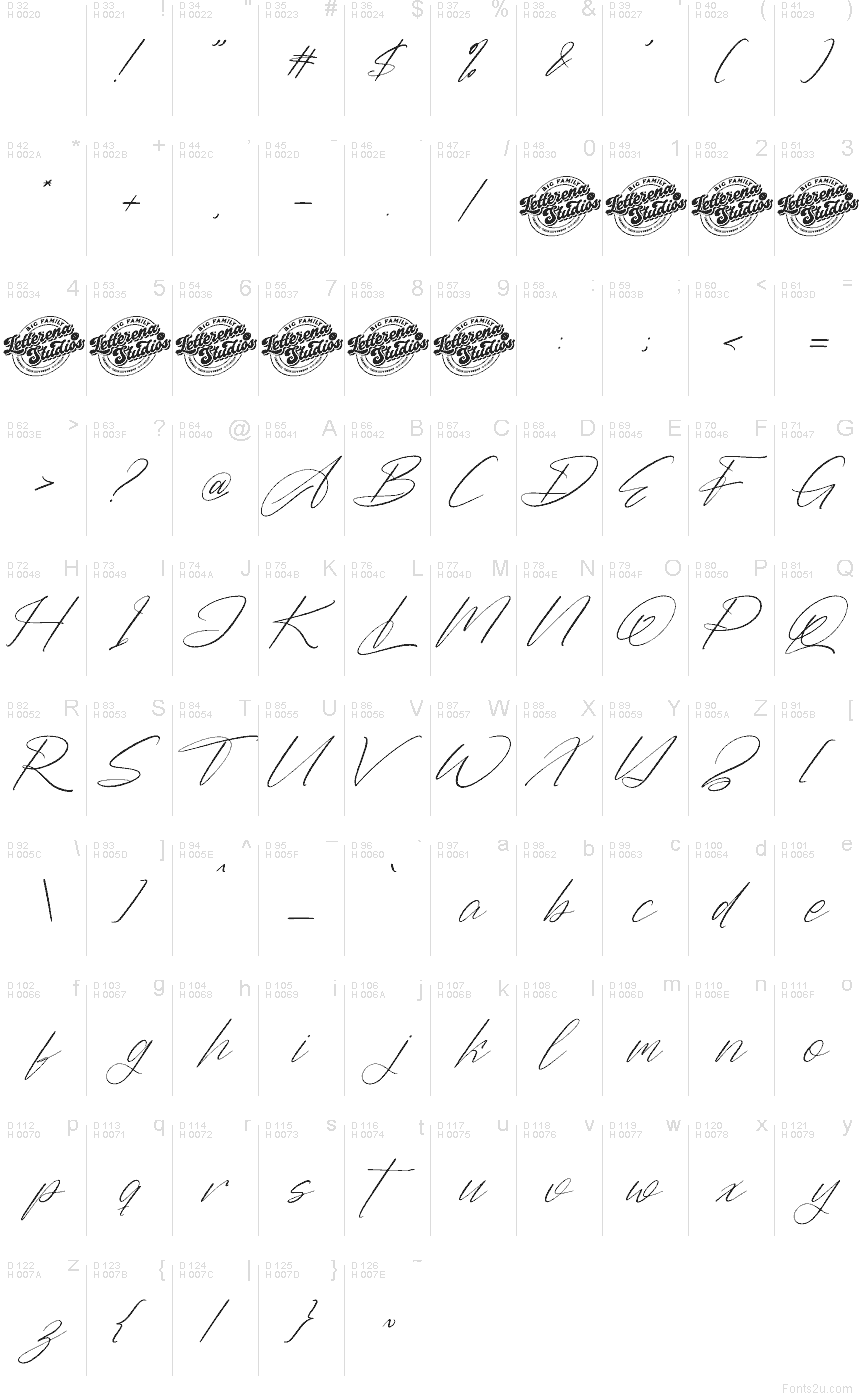
Barthwind DEMO VERSION Italic
Barthwind Italic font by Letterena Studios is a free handwritten signature typeface that captures the feel of a quick, confident pen stroke. Its letters are tall, airy, and slightly slanted, with fine hairline strokes that slip into smooth, generous loops. The result is a light, windswept script that feels personal without looking messy, like a stylish autograph on textured paper.
Using Barthwind Italic, your designs instantly gain that “custom signature” touch that’s so hard to fake. This free font shines on logos, personal branding, photography watermarks, thank-you cards, wedding suites, and social media graphics. It also works beautifully on product packaging where you need a hint of luxury and ease. Pair Barthwind Italic with a clean Barthwind or simple sans serif in small caps to keep the signature feeling elevated and legible.